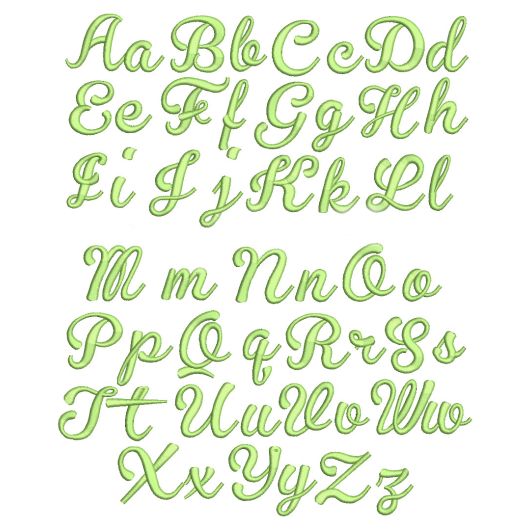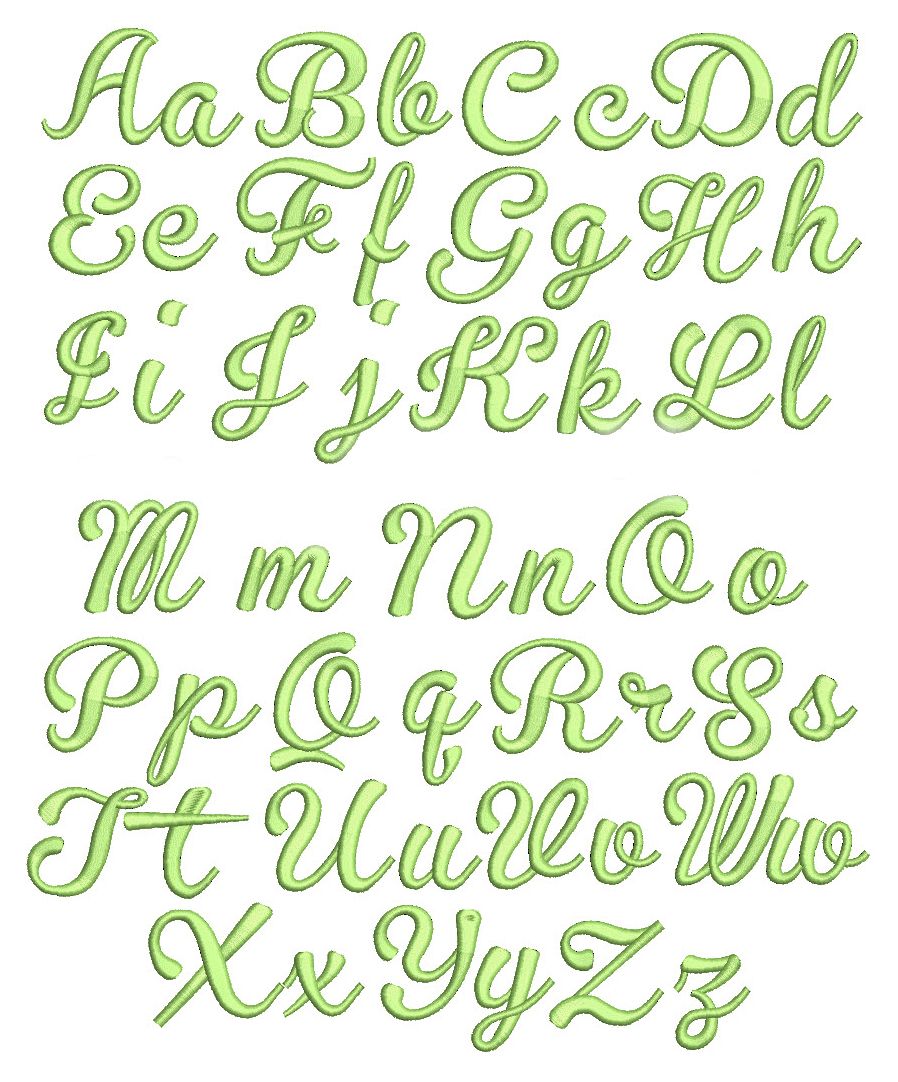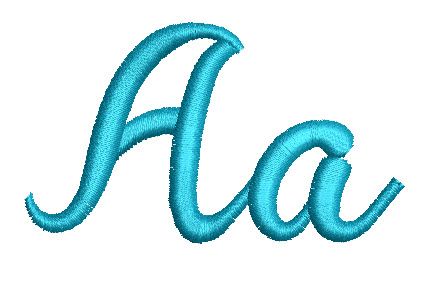
Priscila Script Satin Stitch Embroidery Font
A pretty script with letters that connect when merged together. **please note there are no numbers or characters included with this font.